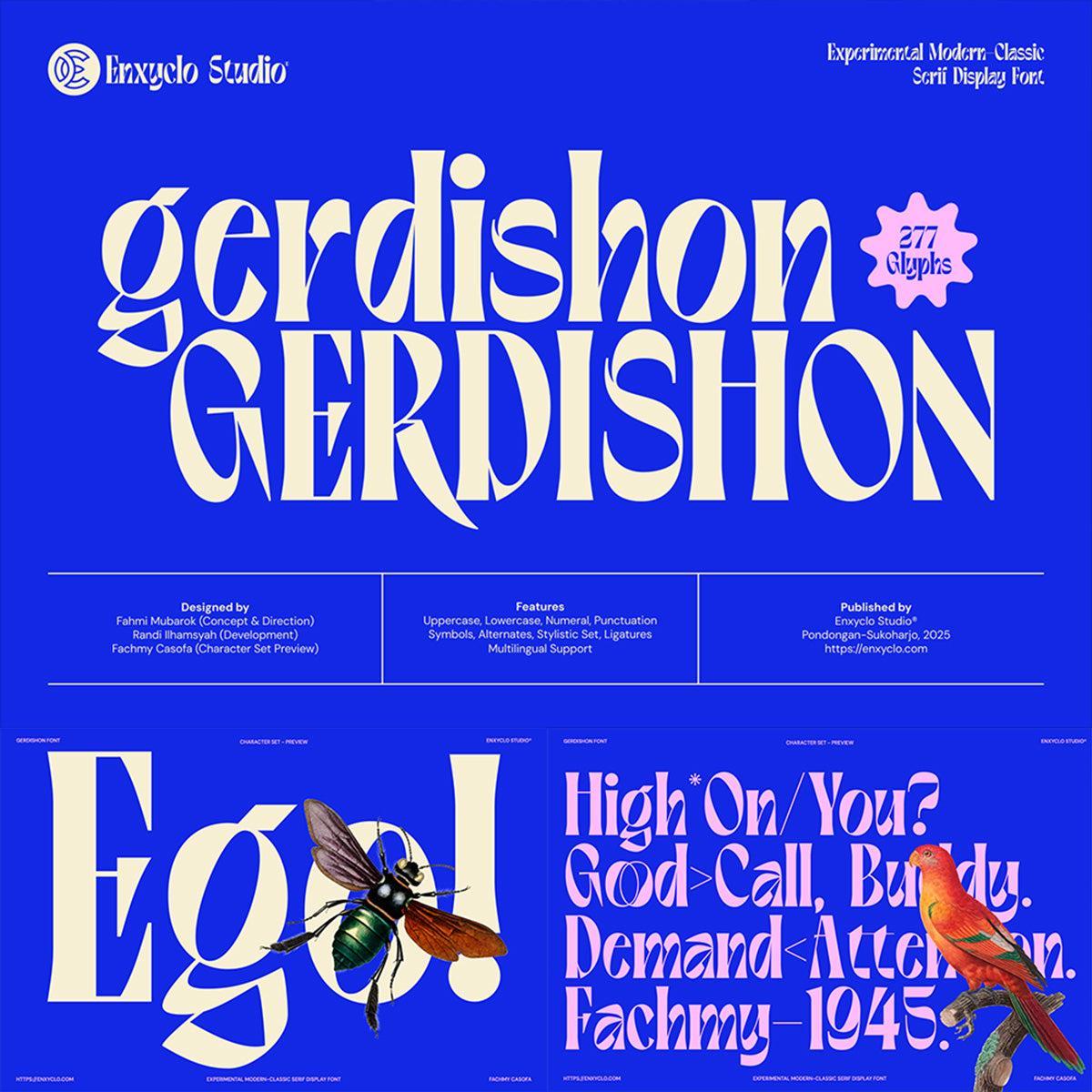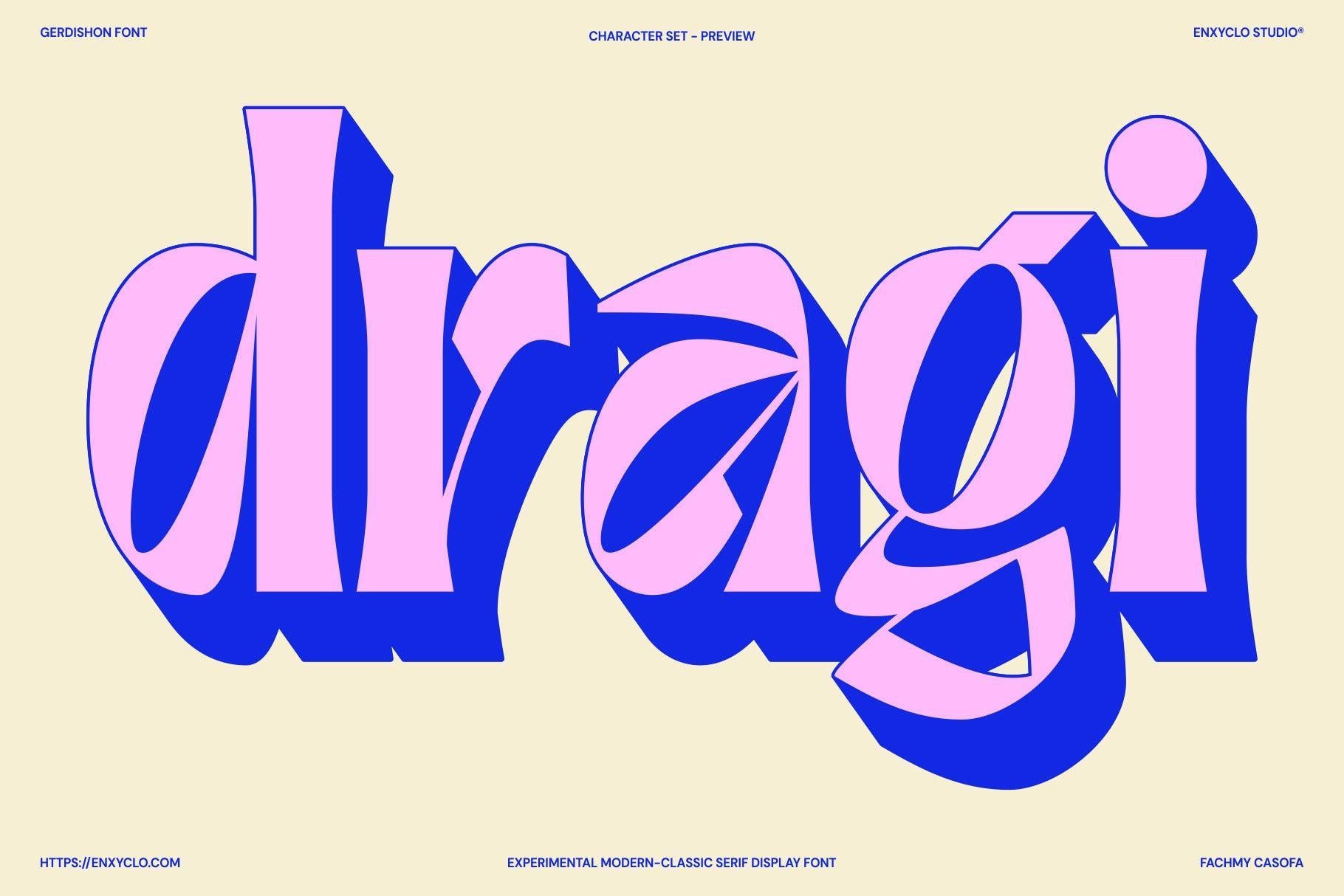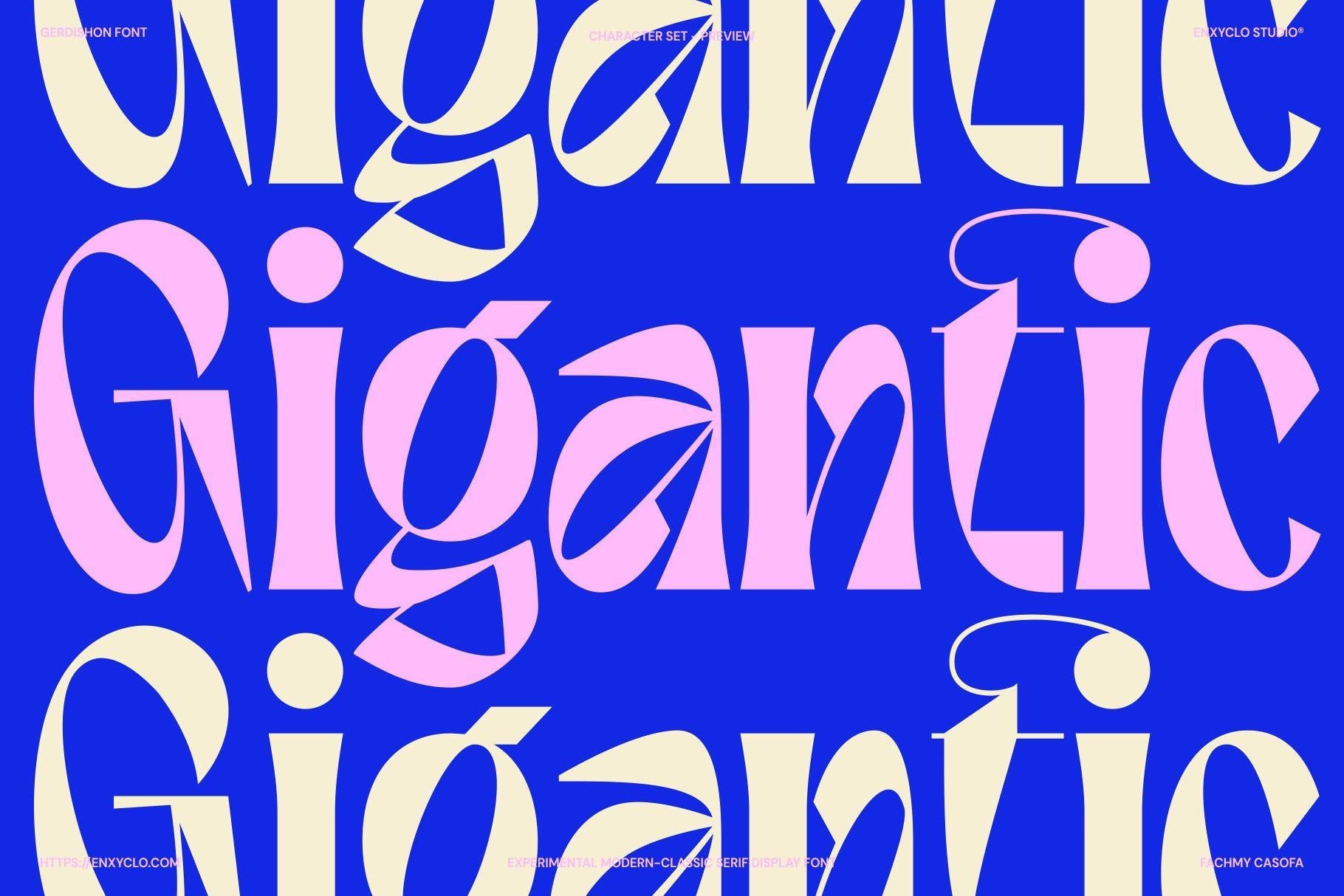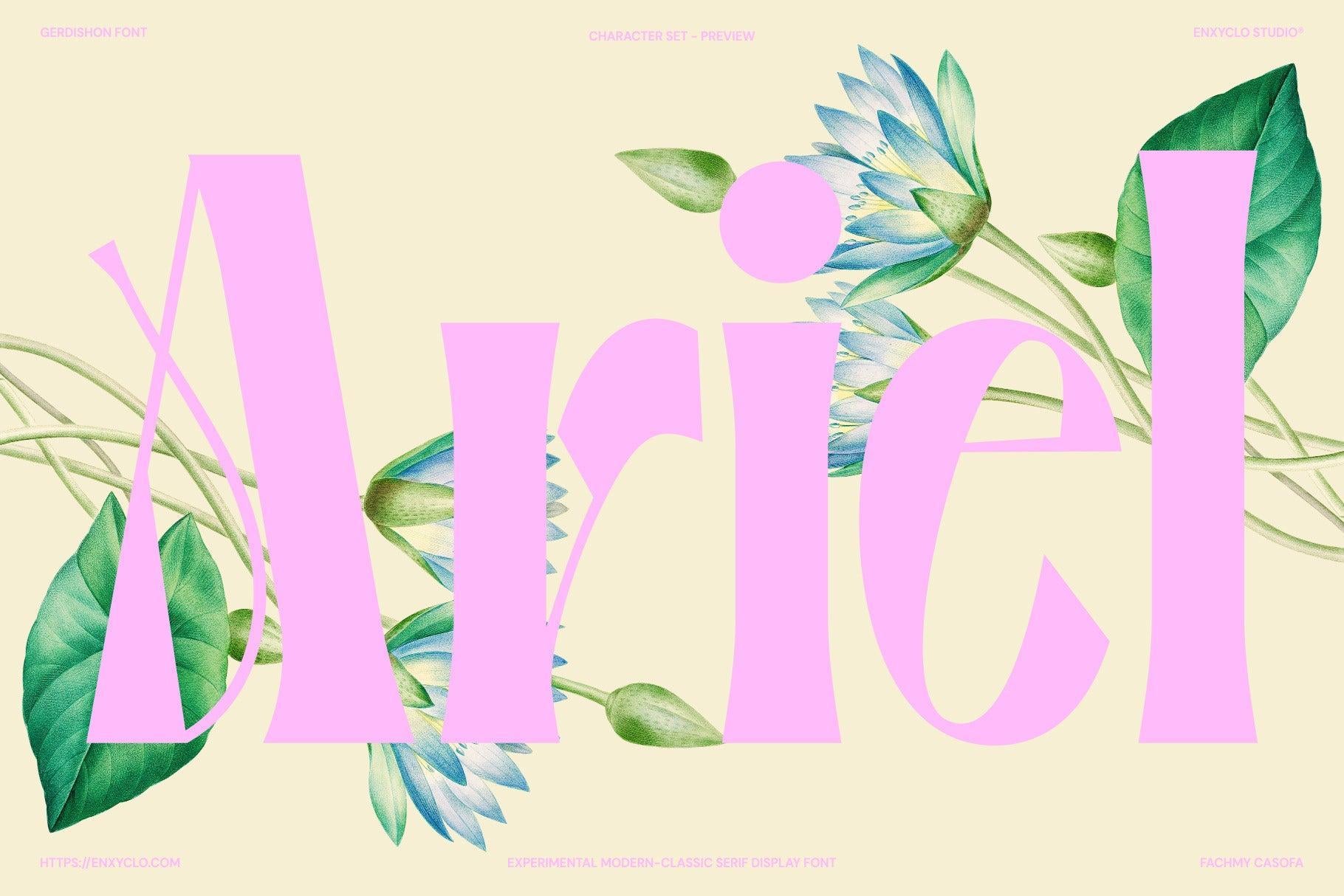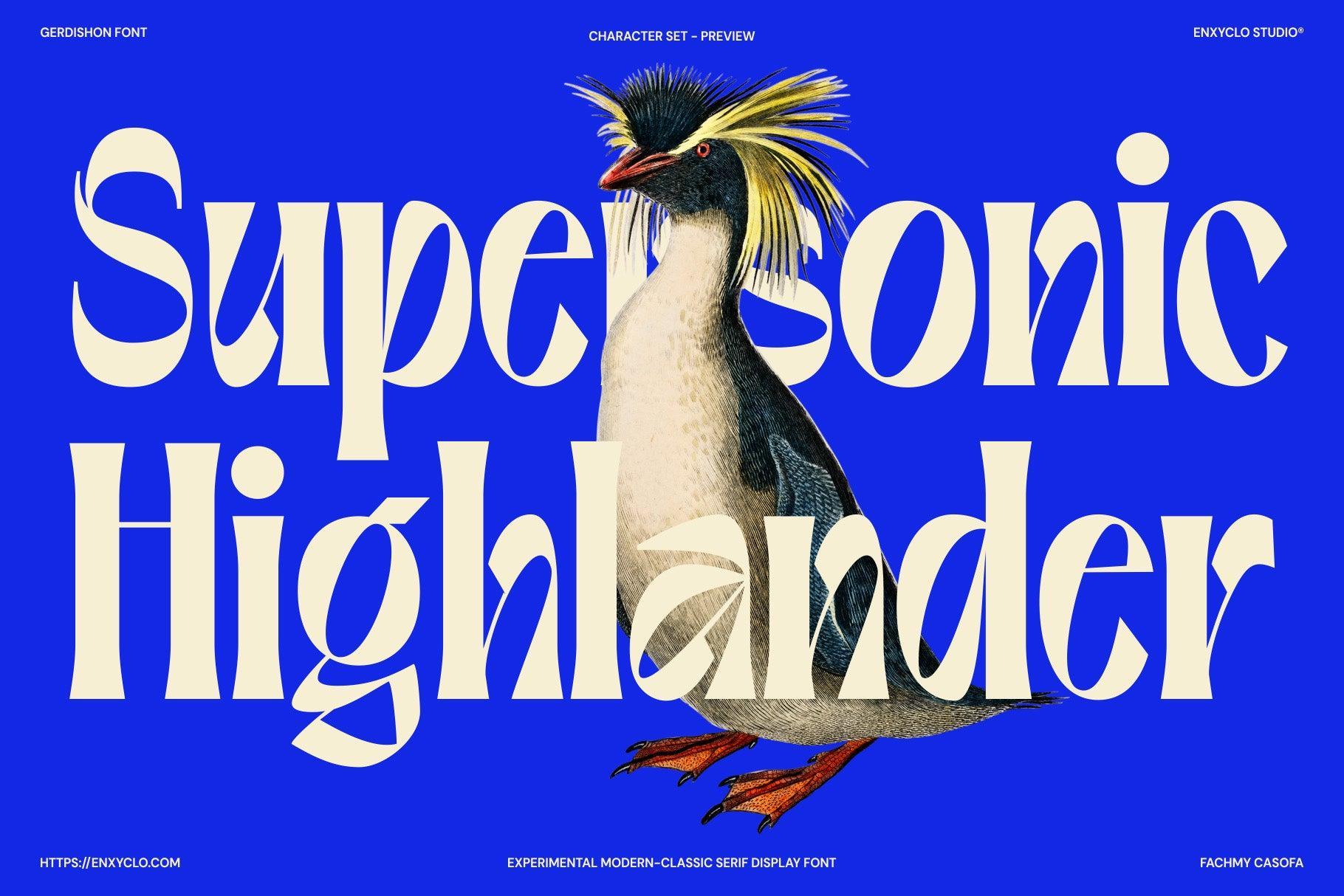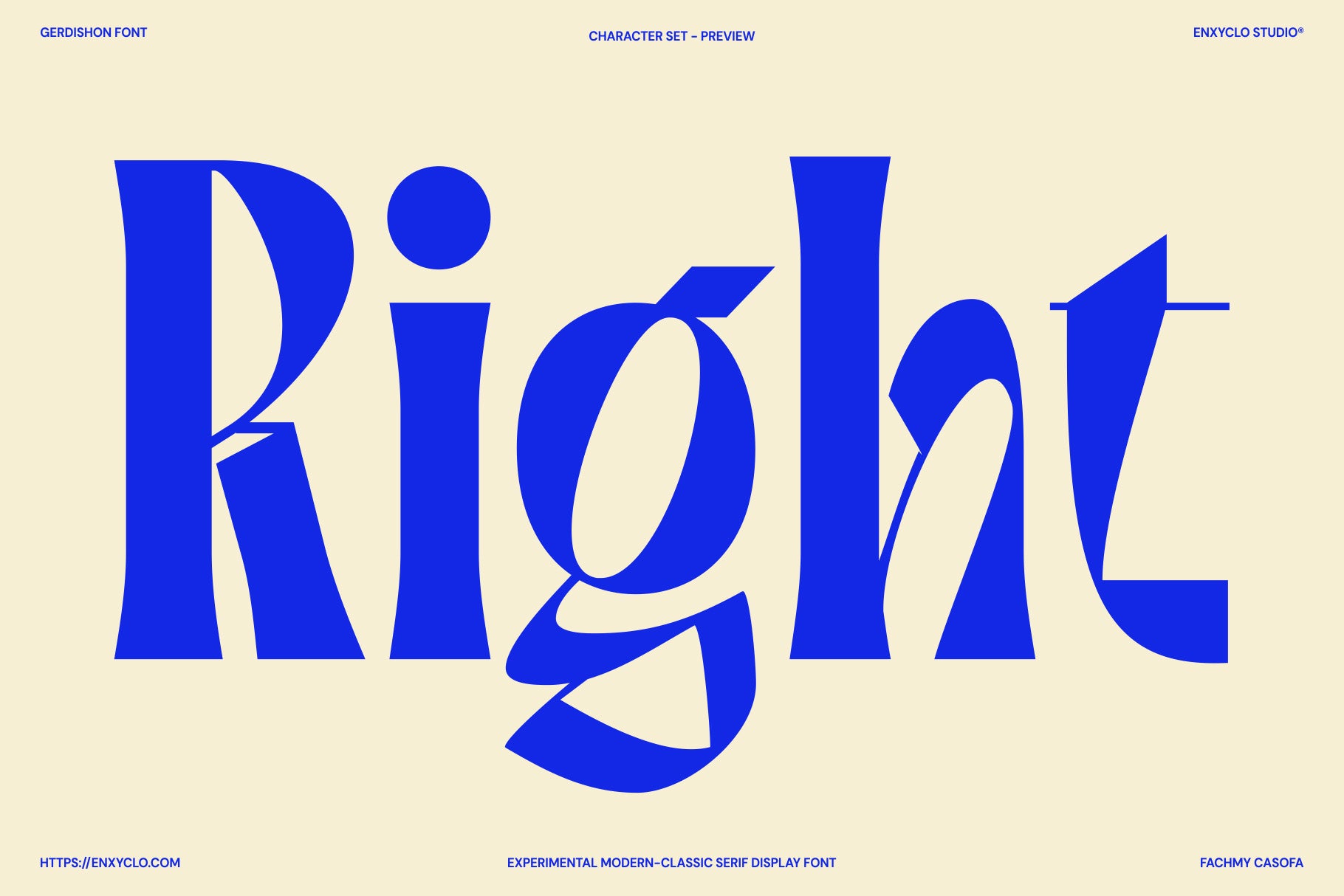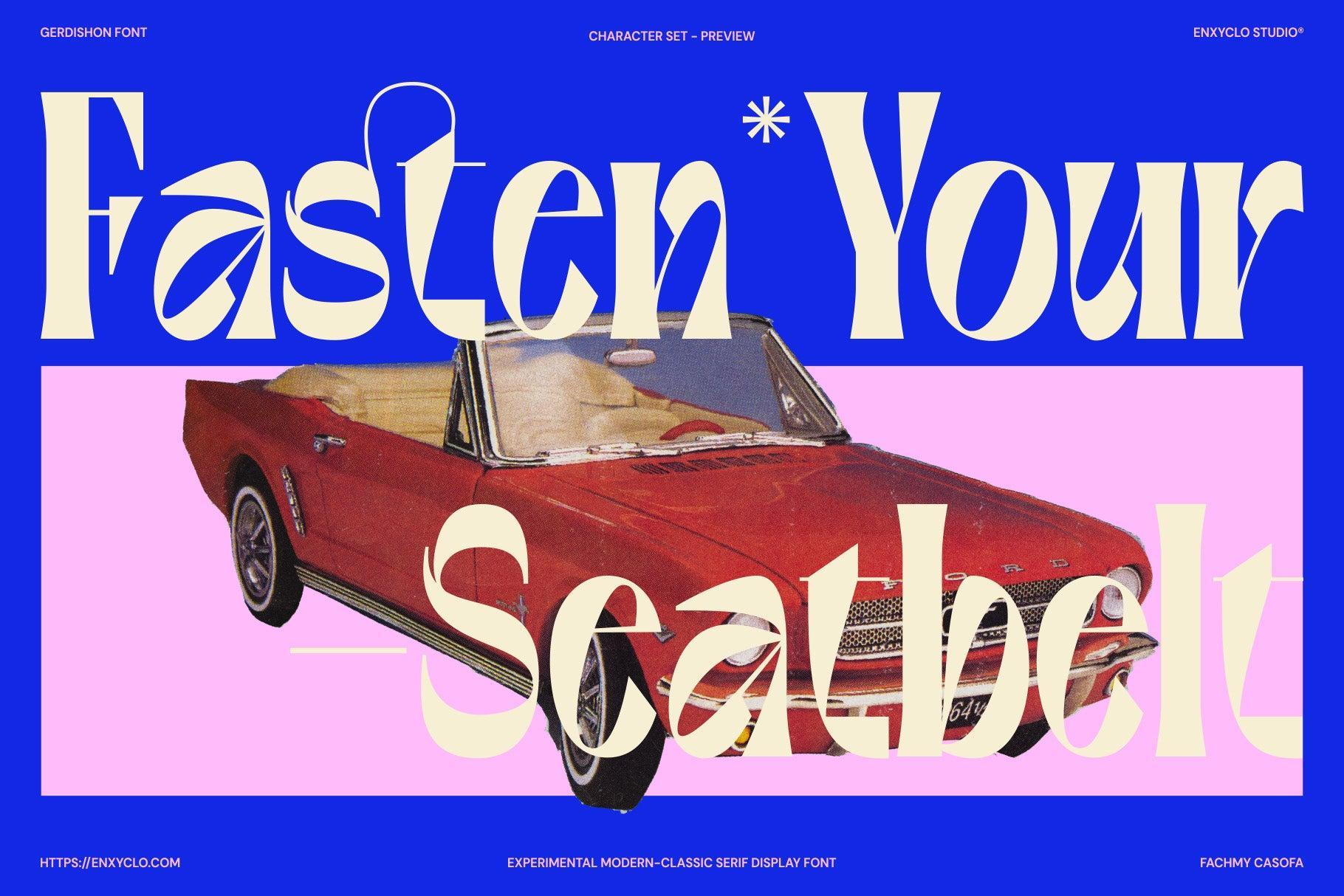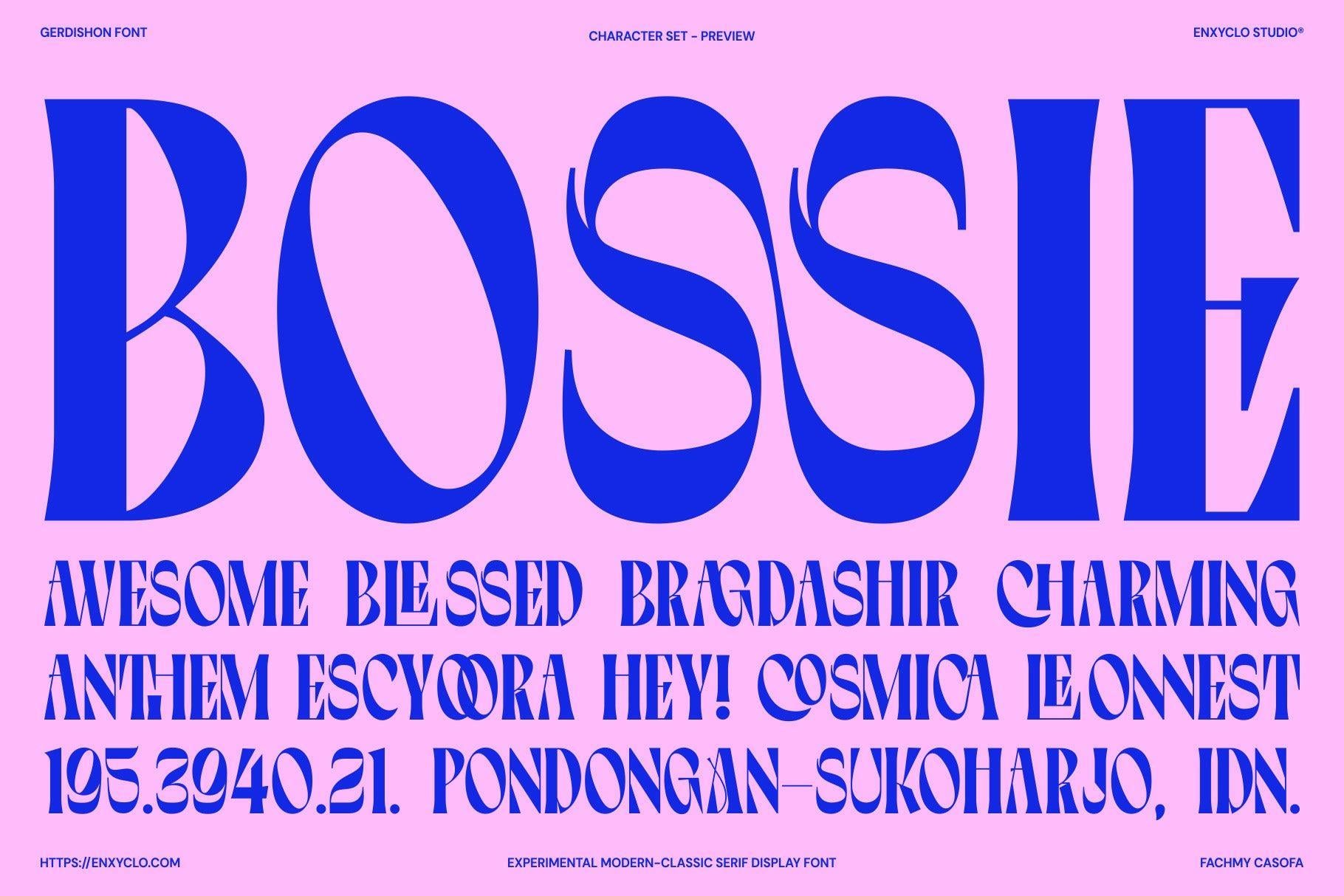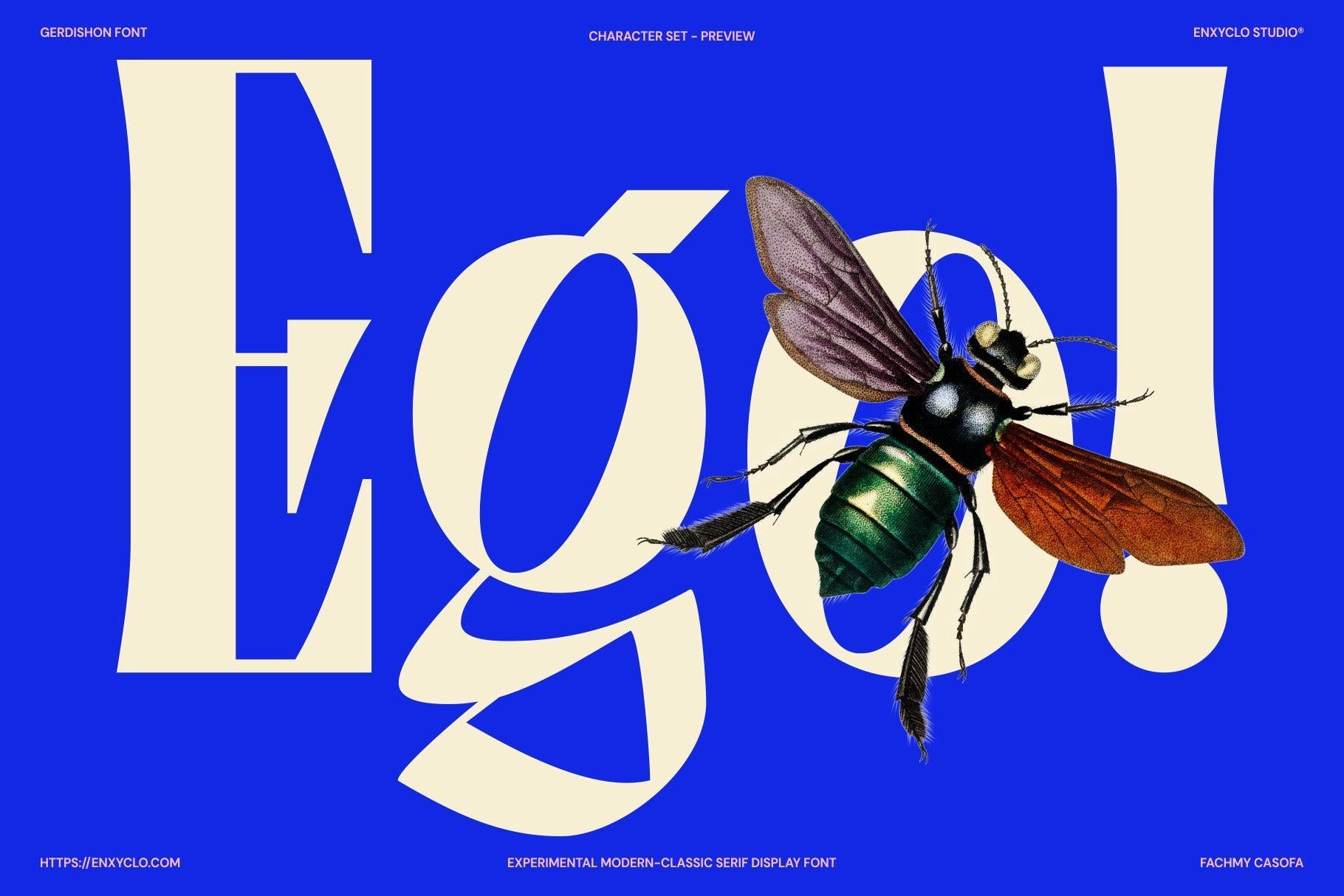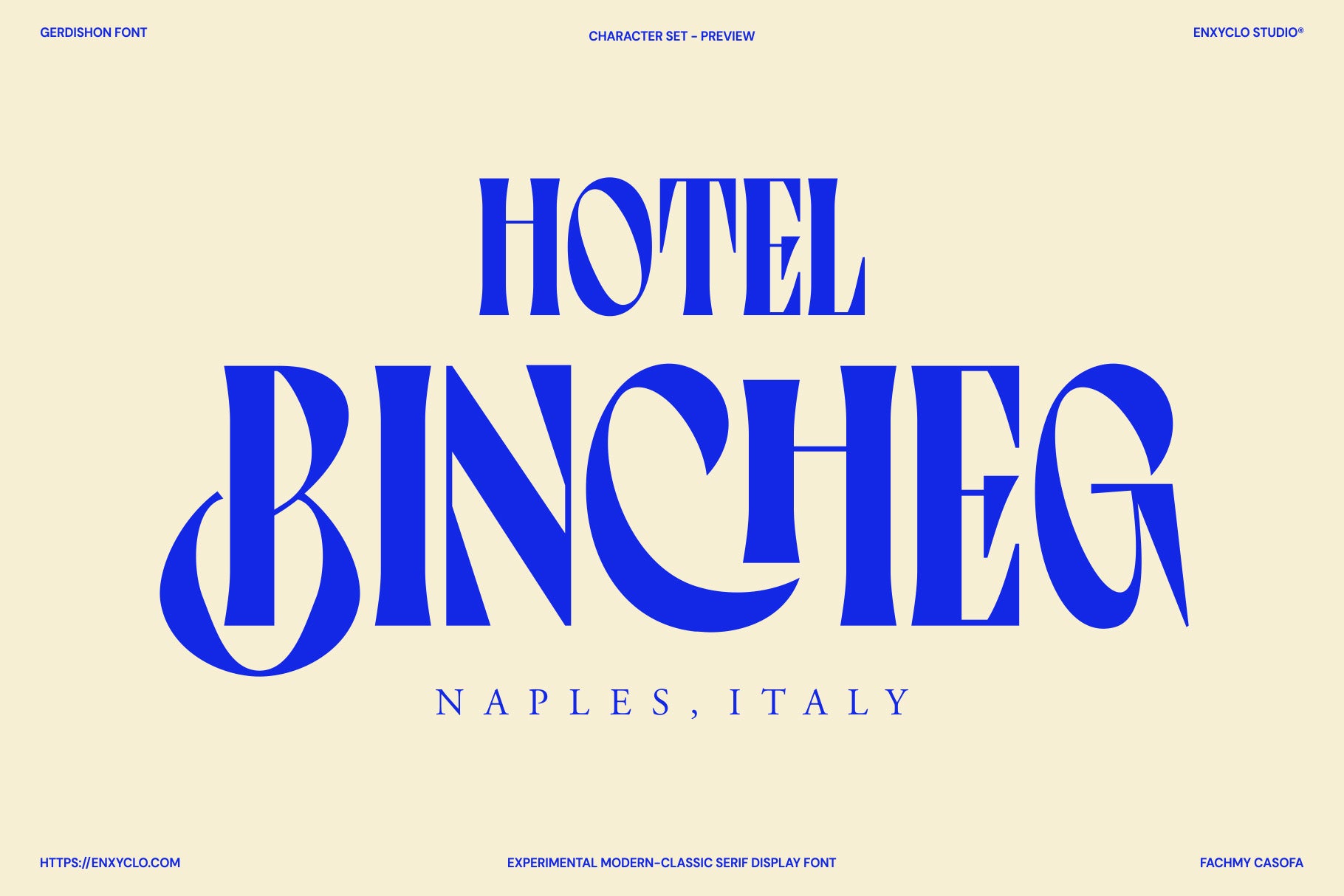
GERDISHON
Gerdishon is a bold modern serif display typeface featuring sharp edges and dramatic curves, designed with 277 glyphs, including uppercase and lowercase letters, numerals, punctuation, and symbols. It supports multilingual characters and includes alternates, ligatures, and stylistic sets, available in True Type Font (TTF), Open Type Font (OTF), and Web Open Font Format (WOFF1 & WOFF2).
Ideal for modern and elegant graphic design projects. Perfect for editorial headlines, logo design, album covers, and high-fashion branding, ensuring a bold visual impact that captures attention and communicates sophistication.